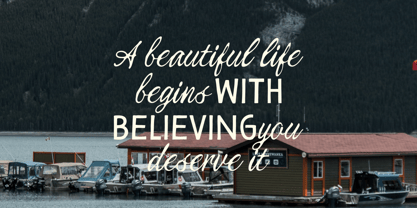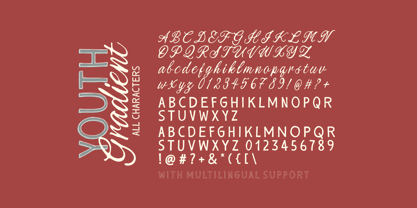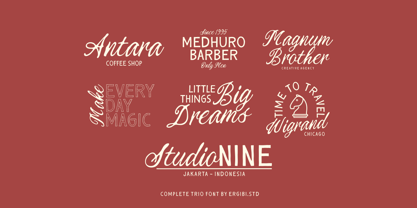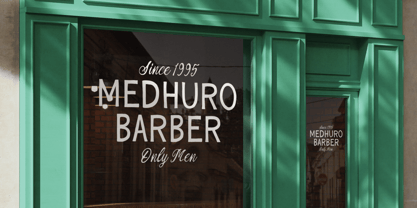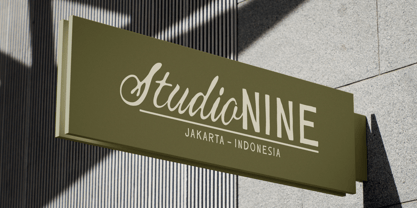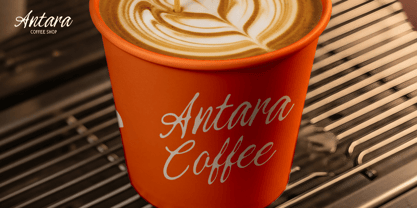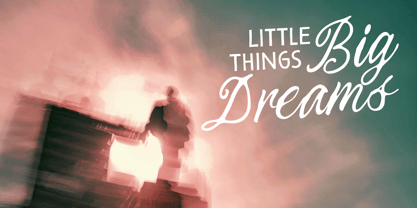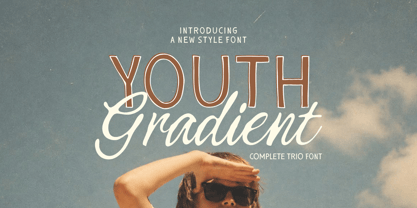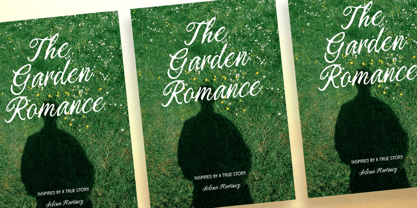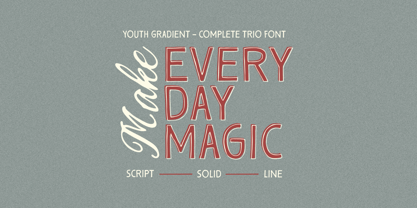
Youth Gradient
by Ergibi Studio
The Youth Gradient Font Family was designed by Riyadh Rahman and published by Ergibi Studio. Youth Gradient contains 3 styles and family package options. More about this family
Youth Gradient is a modern font trio that blends a clean sans serif, a stylish handwritten script, and a versatile companion font into one complete package. Designed for creatives who love clean aesthetics with a personal touch, this collection helps you create eye-catching designs effortlessly.
Whether you're building a sophisticated brand identity or creating beautiful marketing materials, Youth Gradient offers the flexibility and charm to make every project stand out.